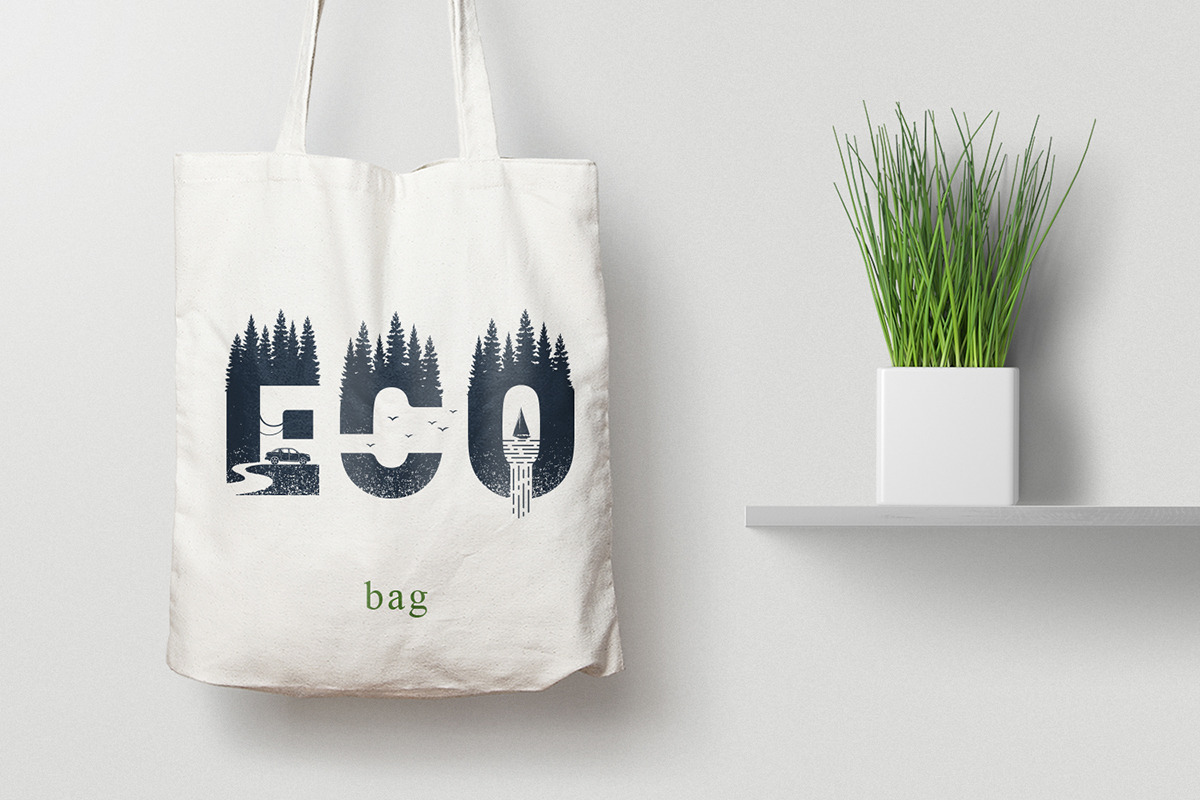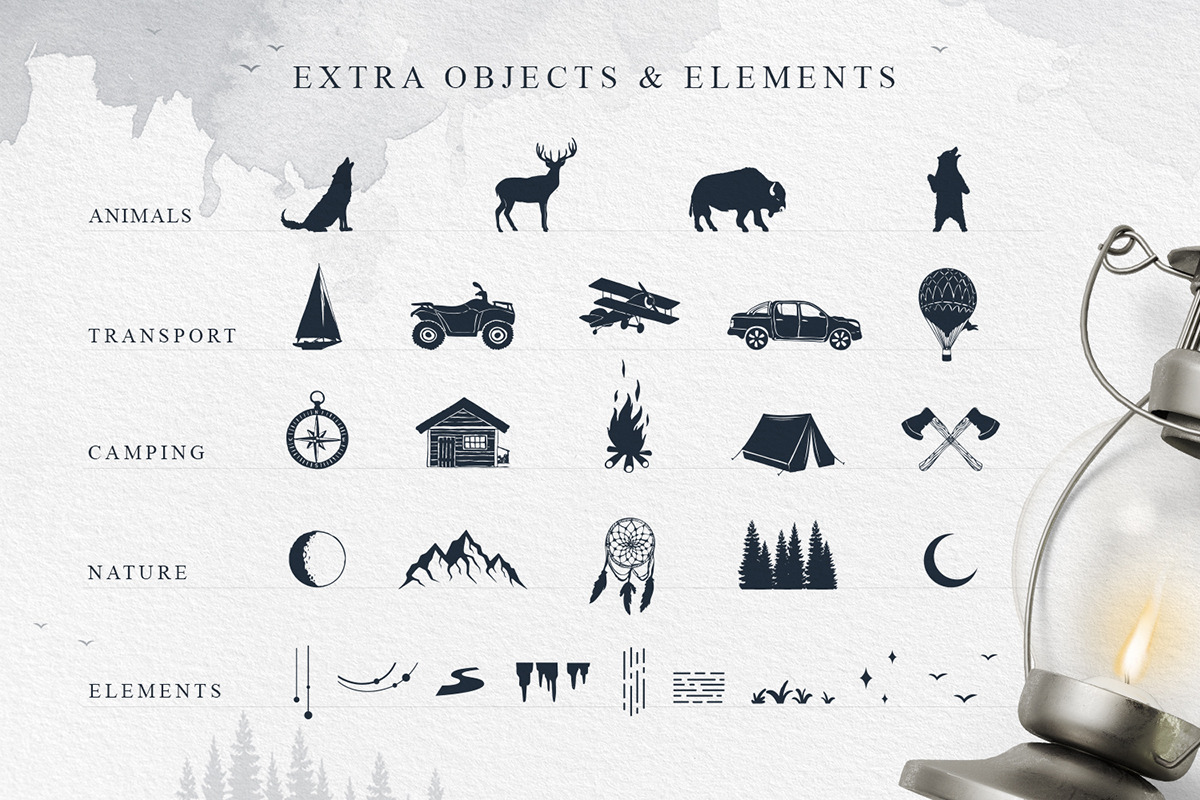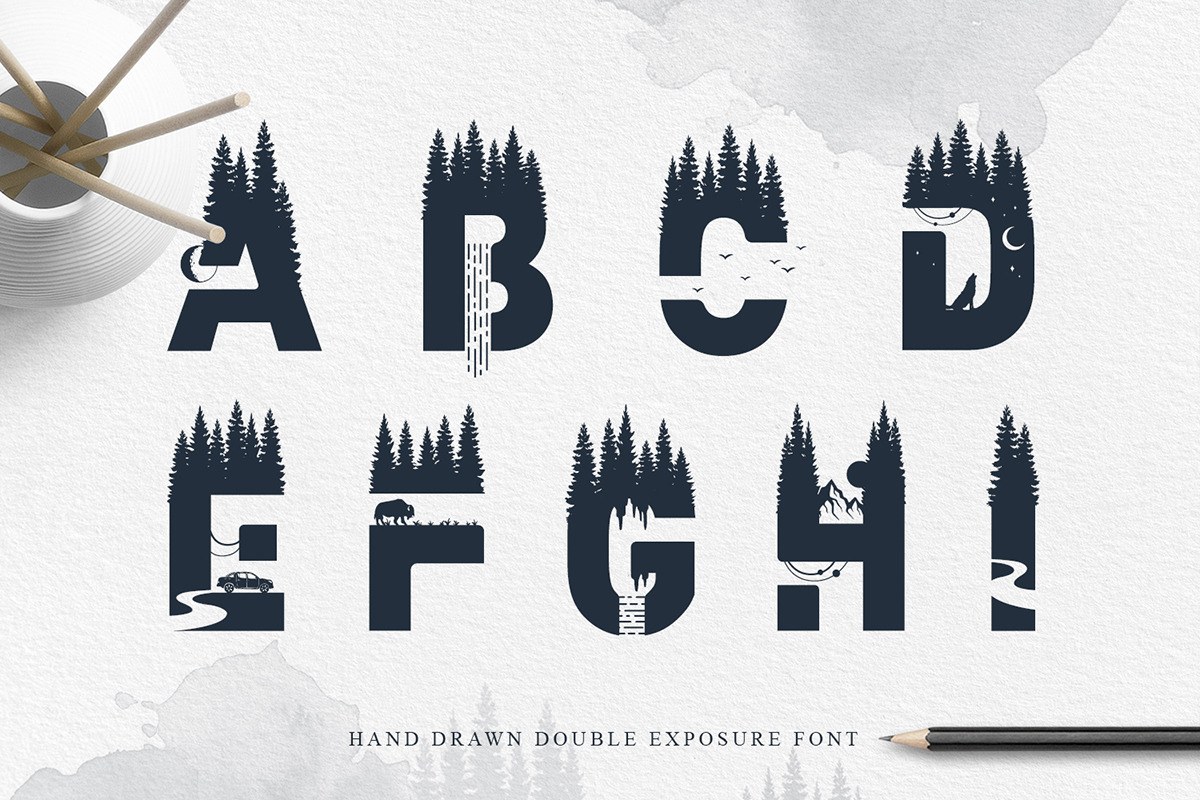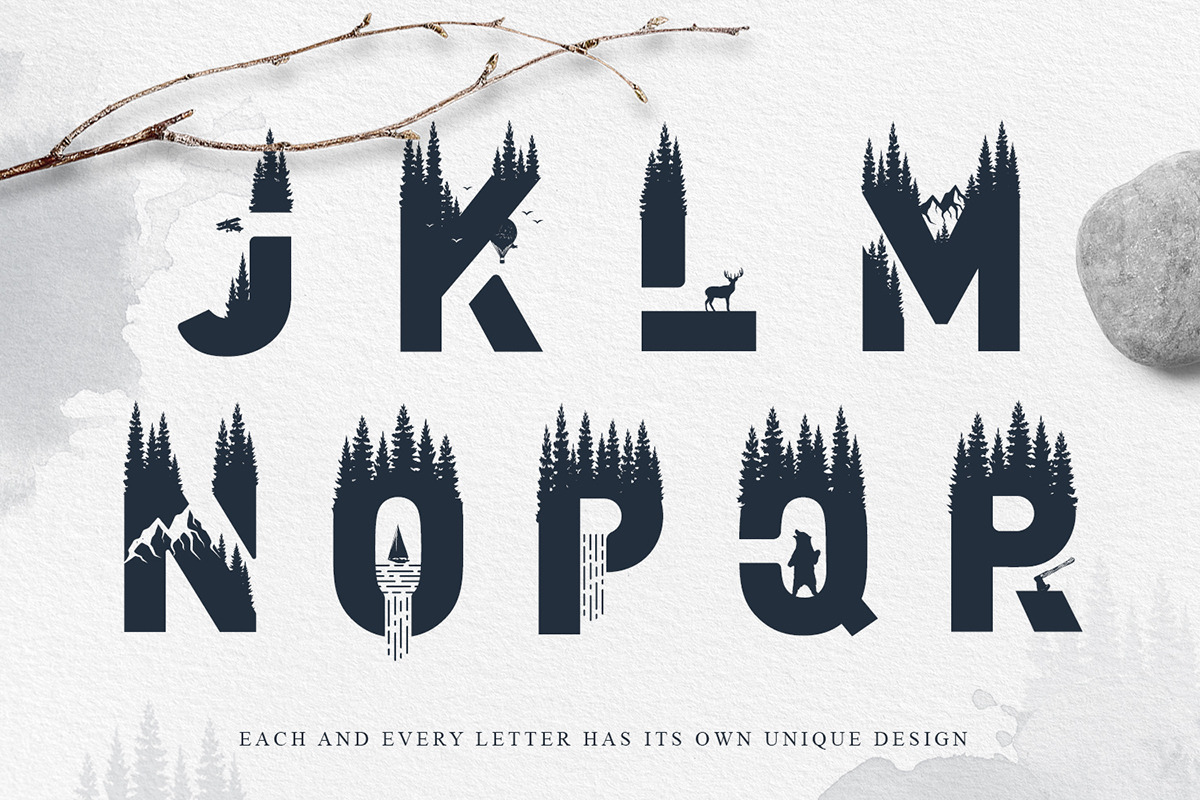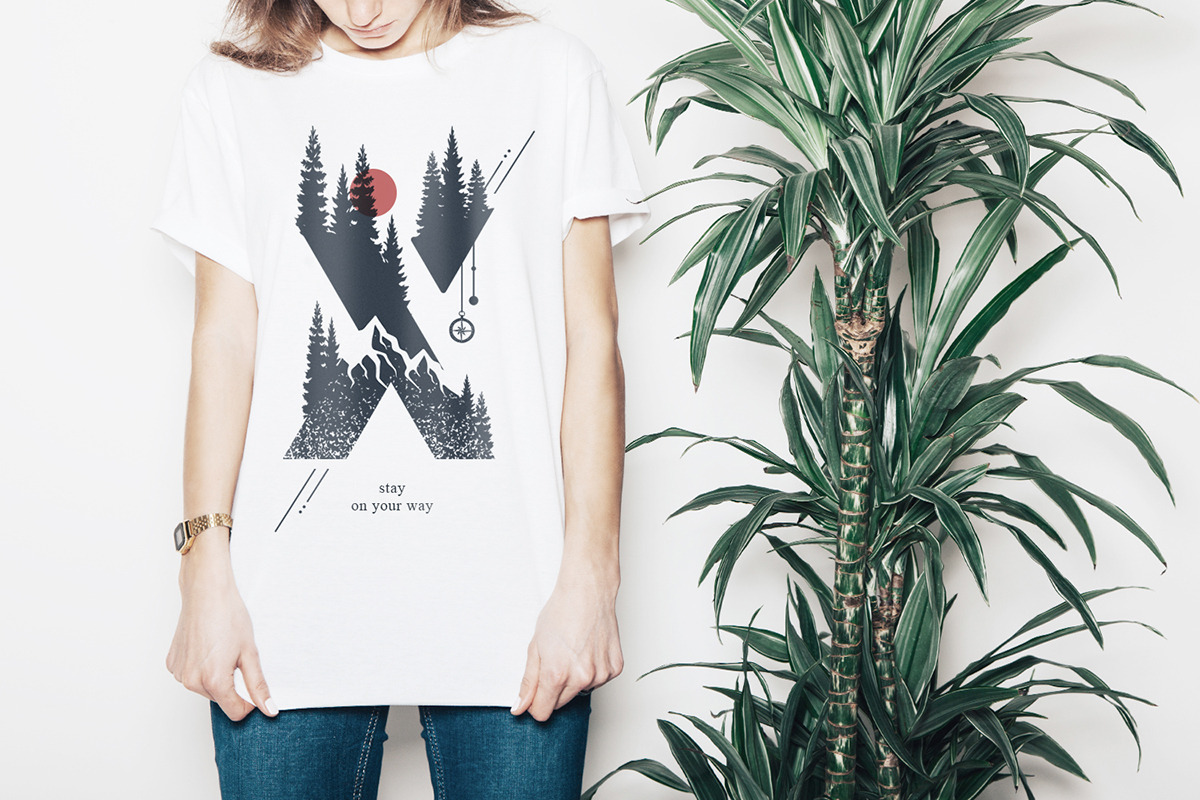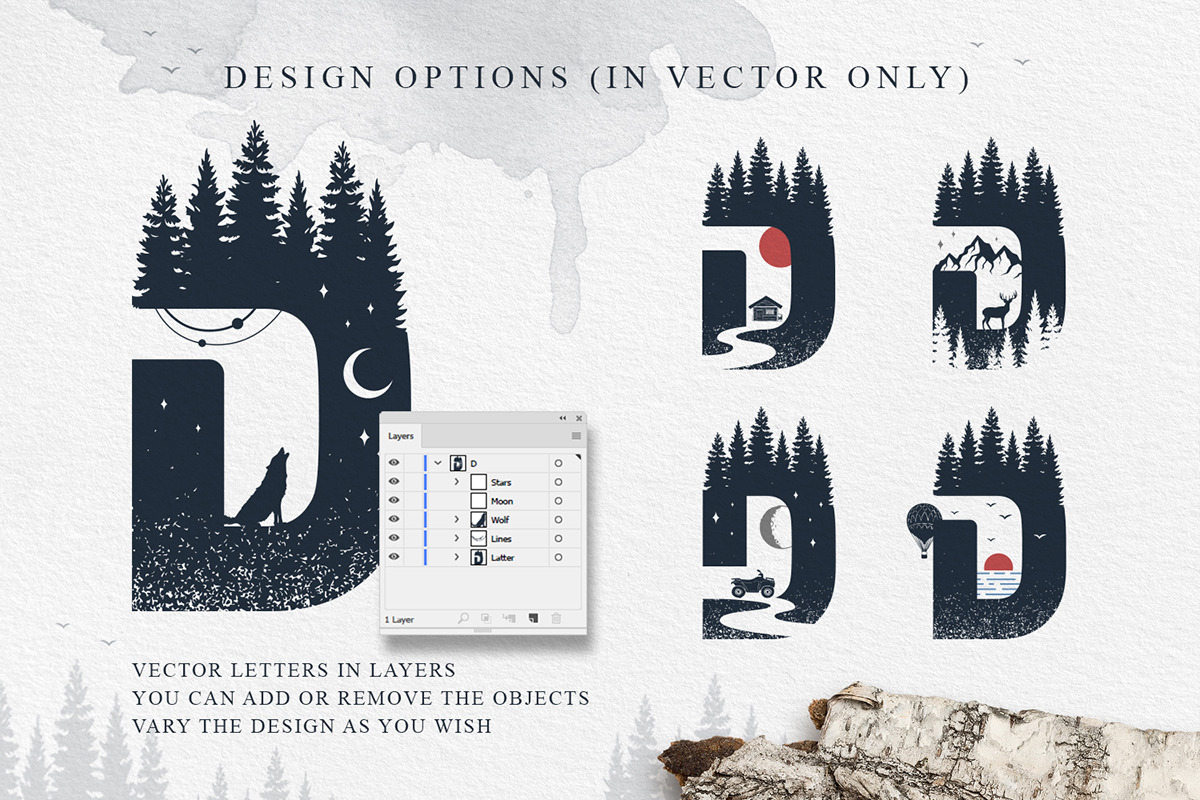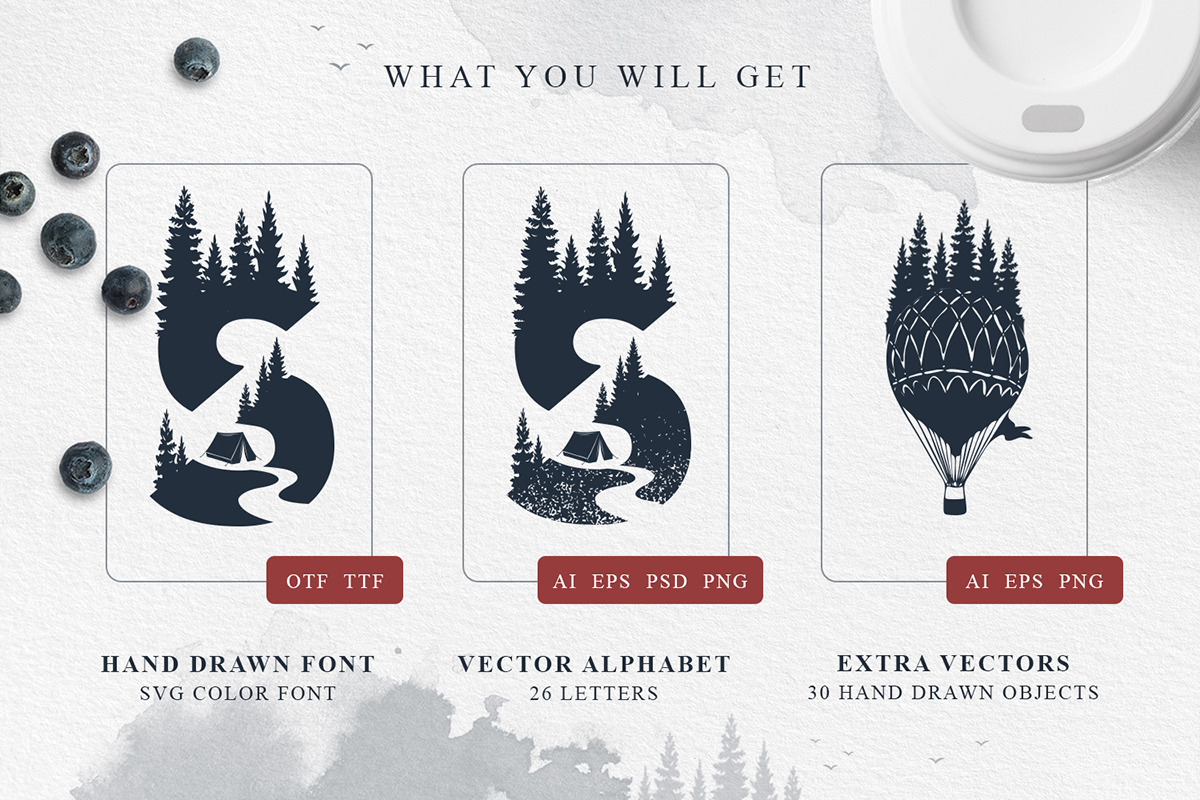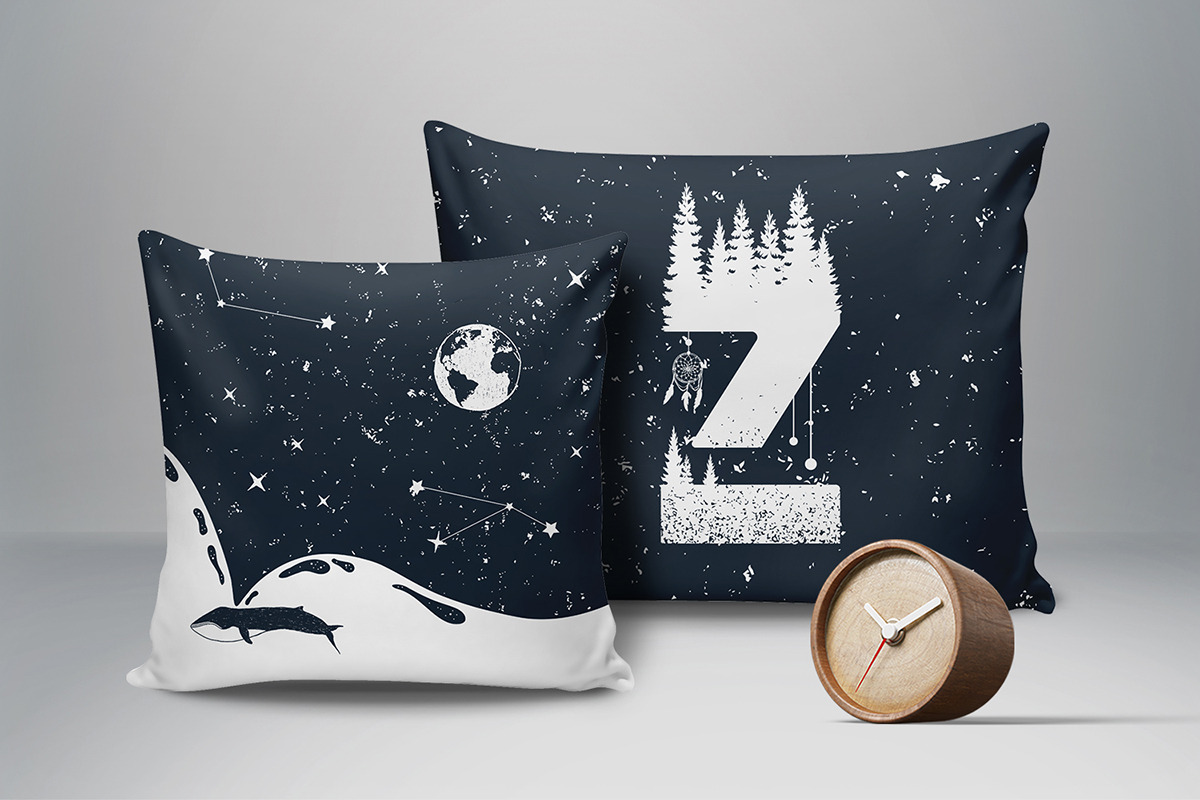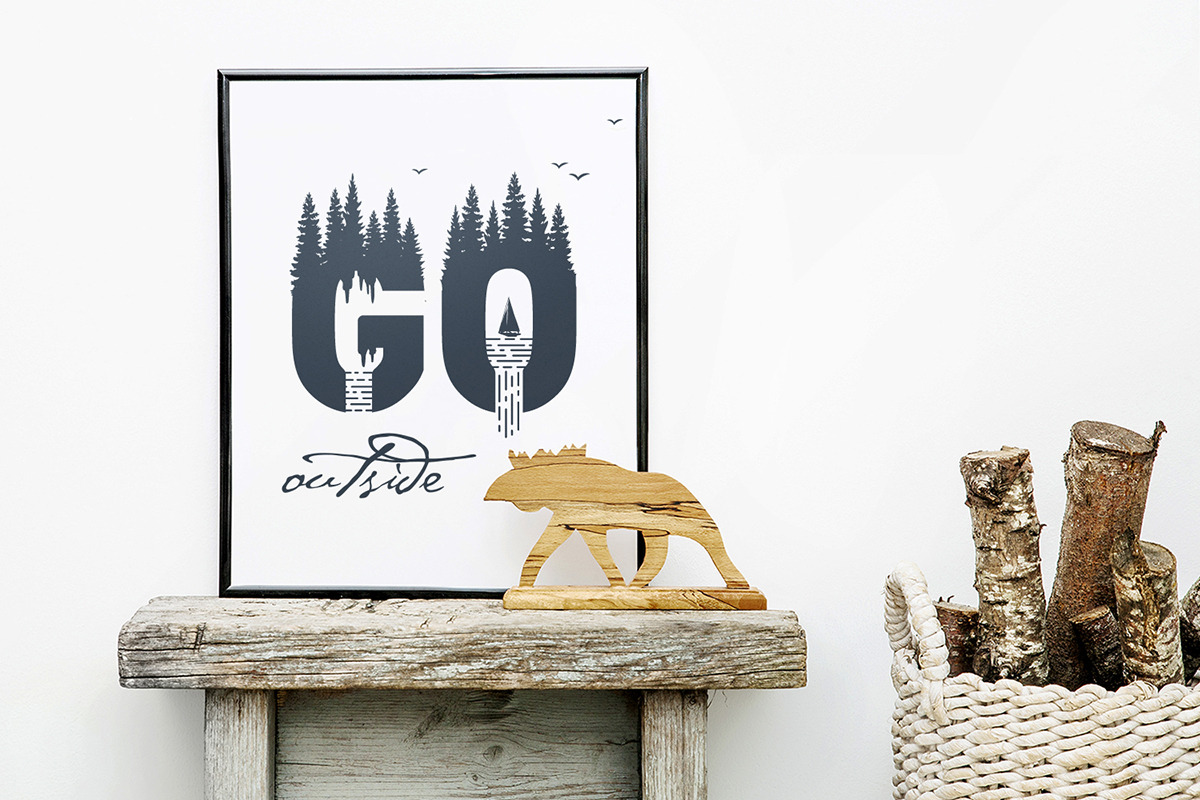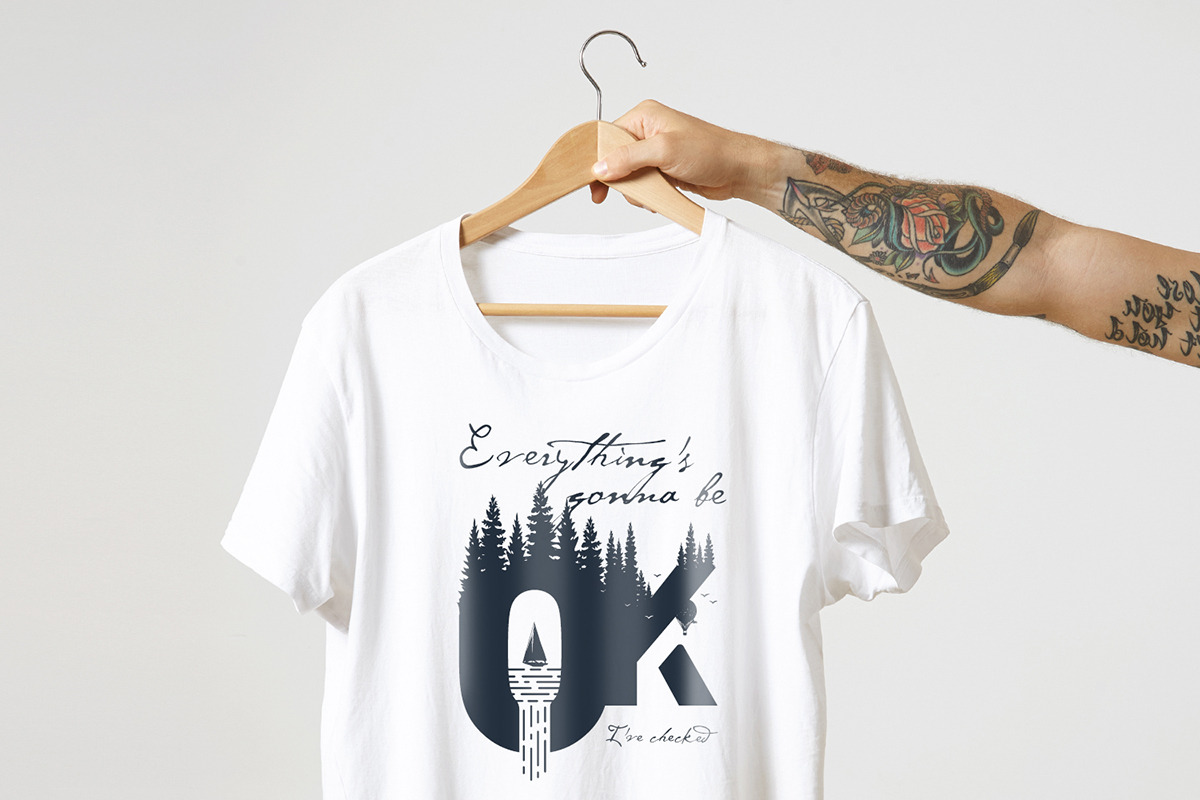
Into The Wild. Double Exposure Font
Introducing my first Color Font!
Wild modern font with double exposure effect that will look awesome in yours design project. Each letter is unique. Forest, mountains, animals - every detail was made by hand and with love ♥
- Over 100 hand drawn elements